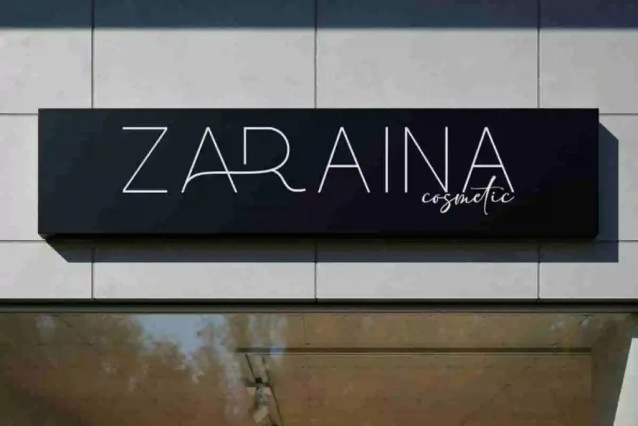
Anggiera Karter Font
Anggiera Karter Font is a monochrome minimal sans serif display font with its unique elegance and style that embodies the principle of sophistication in simplicity. Perfect for accessories and gifts, advertising, author, cosmetic, graphic design, photography, publisher, salon, skincare, spa beauty, writer, and many more.
Anggiera Karter Font includes full set of Uppercase and Lowercase Basic Characters, Number, Punctuation, Symbol, and Ligature. Designed to easily adapt to any design context while exuding understated beauty. Perfect for banners, brand logo, brochure, covers, flyer, greeting cards, headers, label, mockup, stationery, sticker, template, title, wall sign, watermark, etc.